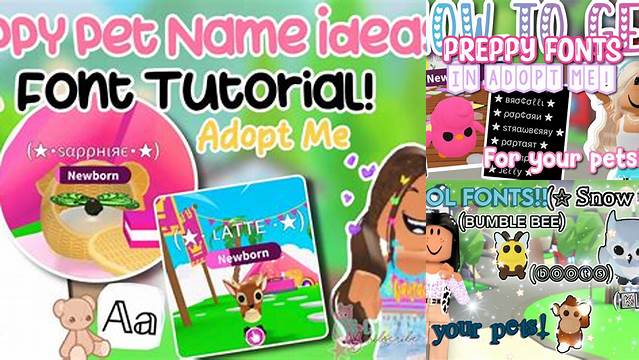
Adopt Me Pet Name Fonts: Make Your Pets Stand Out!
Hey there, fellow Adopt Me enthusiasts! Are you ready to give your virtual pets the ultimate glow-up? In this article, we're diving deep into the awesome world of the Adopt Me pet name fonts generator. We'll explore how you can use these cool tools to create unique and eye-catching names that will make your pets stand out from the crowd. So, buckle up, because we're about to transform your pet-naming game!
The Power of a Unique Name
So, why bother with fancy fonts, you ask? Well, think about it: In the bustling world of Adopt Me, where players are always showing off their adorable pets, a regular name just won't cut it. A unique name, crafted with a special font, is like a secret weapon. It grabs attention, sparks curiosity, and makes your pet instantly more memorable. Imagine strolling through the Adopt Me neighborhood, and everyone's eyes are drawn to your pet with its super-cool, stylish name. That's the power of a well-chosen font!
It's more than just aesthetics, guys. A unique name reflects your personality, your creativity, and your love for your virtual companions. It's a way to express yourself and make your pets feel extra special. Plus, it's a great conversation starter. People will be asking you where you got that awesome font, and you'll be the trendsetter. This is where the Adopt Me pet name fonts generator comes into play. It's the tool that will help you achieve all of this and more. It allows you to transform any ordinary name into something extraordinary. You can choose from a wide array of fonts, from elegant and sophisticated to bold and playful. There's a font for every pet and every personality. Finding the right font can be a fun and exciting process, allowing you to express your individuality and make your pets truly one-of-a-kind. Using a generator is as simple as typing in your desired name and selecting your preferred font style. In seconds, you have a customized name ready to be used in Adopt Me. This simple step can significantly enhance your gaming experience, making it more enjoyable and engaging. It's about crafting a virtual identity that is as unique and colorful as the pets you love. And it all starts with the right font, ensuring your pets are not just seen but remembered.
Using a font generator is also about building a community. It's about sharing ideas, inspiring others, and creating a vibrant and dynamic environment within the Adopt Me community. When your pets have unique names, they become a part of this creative ecosystem. They are a reflection of your interaction with the game and your contributions to the player base. Furthermore, the ability to customize your pets' names encourages you to experiment with different styles and fonts. It prompts you to explore your creative side and to find the perfect name that aligns with your pets' personalities. It also encourages you to be part of the community by exchanging ideas, which enhances the social aspect of the game. With a font generator, every pet becomes a canvas for self-expression, a testament to your ingenuity. It's more than a game; it's a platform to build a community, share creativity, and elevate your gaming experience.
How to Use an Adopt Me Pet Name Fonts Generator
Alright, let's get down to the nitty-gritty. Using an Adopt Me pet name fonts generator is super easy. Here's a simple guide to get you started:
- Find a Generator: There are plenty of free online font generators out there. A quick search like "Adopt Me font generator" will give you a bunch of options. Choose one that looks user-friendly and has a good selection of fonts.
- Enter Your Pet's Name: Type the name you want to use for your pet into the text box provided by the generator. This is where the magic begins!
- Choose Your Font: Browse through the font options. Some generators offer dozens, even hundreds, of fonts. Pick the one that best suits your pet's personality and your style. Consider the font's readability, too; you want people to be able to read the name at a glance.
- Copy and Paste: Once you've found the perfect font, copy the stylized name from the generator. Then, head over to Adopt Me and paste it into the pet-naming field. And voila! Your pet has a unique, eye-catching name.
And just like that, your pet's name is transformed! The process is simple and the result is something that makes your pet more attractive. Remember to experiment with different fonts until you find the perfect match. The options are endless, and the only limit is your imagination. Be creative and have fun with it! You will want to give your virtual friend the best name possible. You can also ask other people for ideas. It is always great to work with a team.
Top Tips for Choosing the Perfect Font
Choosing the right font is an art form, my friends. Here are some tips to help you master it:
- Consider Your Pet's Personality: Does your pet have a cute and cuddly vibe? Go for a playful, bubbly font. Is your pet more of a majestic, regal type? Choose an elegant, sophisticated font.
- Readability is Key: Make sure the font is easy to read, even in the game. Avoid overly fancy fonts that might be difficult to decipher.
- Experiment and Have Fun: Don't be afraid to try out different fonts. The best way to find the perfect one is to experiment and see what looks best. Try different combinations to see what makes your pet stand out.
- Consider the Overall Aesthetic: Think about the colors, styles, and themes you use in Adopt Me. Does the font complement your pet's appearance and your overall aesthetic?
- Get Inspired: Look at other players' pets for inspiration. See what fonts they're using and what styles you like. Get ideas from other places.
With these tips in mind, you'll be well on your way to finding the perfect font for your pets. Remember, it's all about expressing your creativity and having fun. It is a chance to experiment with your pets' names and their overall aesthetic. Be sure to consider the overall design and style of the name to ensure it complements your pet's personality. Take your time and discover what looks and sounds best for your pets. Have a blast playing with the Adopt Me pet name fonts generator and make your pets the stars of the show!
Conclusion: Unleash Your Creativity!
So, there you have it, guys! The Adopt Me pet name fonts generator is a powerful tool for spicing up your virtual pets' names and making them stand out. By choosing the right font, you can express your creativity, make your pets more memorable, and connect with the Adopt Me community in a whole new way. So go forth, experiment with different fonts, and give your pets the names they deserve. Have fun, and happy pet-naming! Your pets will thank you for it. Remember, there is no limit to the creative process.